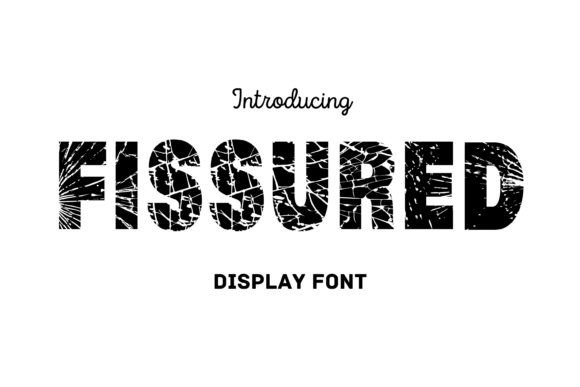
Introducing Fissured Font: The Edgy Typeface That’s Cracking the Mold
I still remember the design project that led me to discover Fissured font. I was working on a branding campaign for a trendy new coffee shop, and I needed a font that would convey their edgy, avant-garde vibe. After hours of scouring font libraries and marketplaces, I stumbled upon Fissured font – and it was love at first sight! 💡
This captivating fusion of typography and intricate crack patterns instantly caught my attention. The unique blend of classic letterforms with the mesmerizing texture of shattered surfaces added a depth and character to my design that I’d never seen before. I knew right then that Fissured font was going to be a game-changer for my design projects.
- ✨ Unique texture: The crack patterns add a level of visual interest that’s hard to achieve with standard fonts.
- ✅ Versatility: Fissured font works beautifully for both digital and print projects, from branding and posters to packaging and more.
- 💥 Impact: This font demands attention and makes a lasting impression on viewers.
While Fissured font is an incredible addition to any design project, there are a few things to keep in mind: 🤔
- ⚠️ Legibility: At very small sizes, the crack patterns can make the text harder to read. Use it at larger sizes or for headlines and titles.
- ⚠️ Pairing: Fissured font can be quite bold, so it’s essential to balance it with simpler fonts in your design.
While the true origins of Fissured font are shrouded in mystery, it’s said that the designer was inspired by the intricate crack patterns found in ancient ruins and weathered stone. By combining these organic textures with classic typography, the designer aimed to create a font that would add a touch of grit and sophistication to any design project.
Q: Is Fissured font suitable for body text?
A: Due to its bold, textured nature, Fissured font is best suited for headlines, titles, and short paragraphs. For longer body text, consider pairing it with a simpler font.
With Fissured font, you’ll unlock a world of creative possibilities and add an edgy touch to your designs. Whether you’re a seasoned designer or a creative hobbyist, this innovative typeface is sure to crack the mold and leave a lasting impression on your audience! 💥